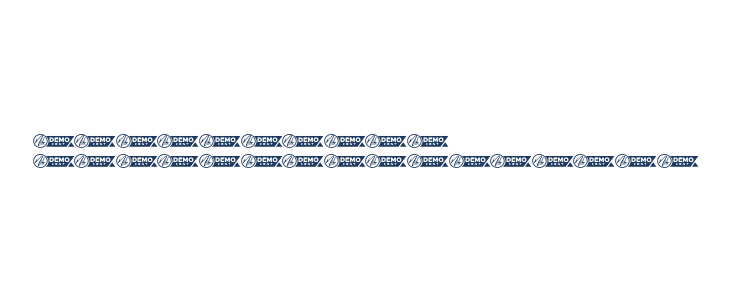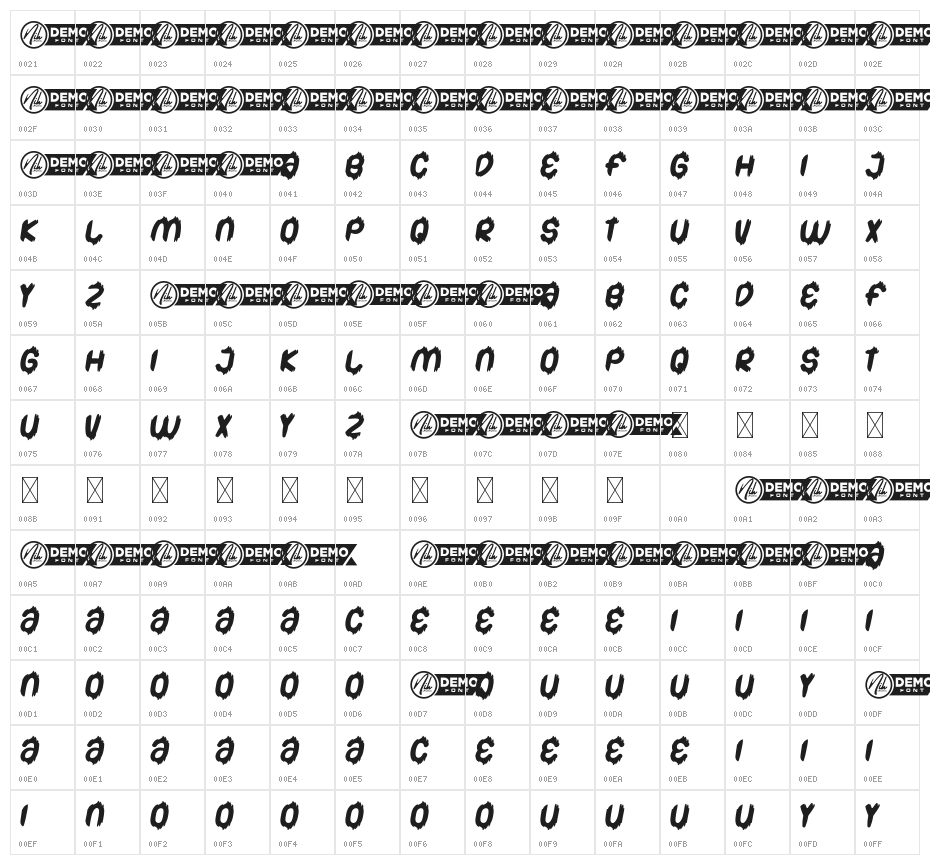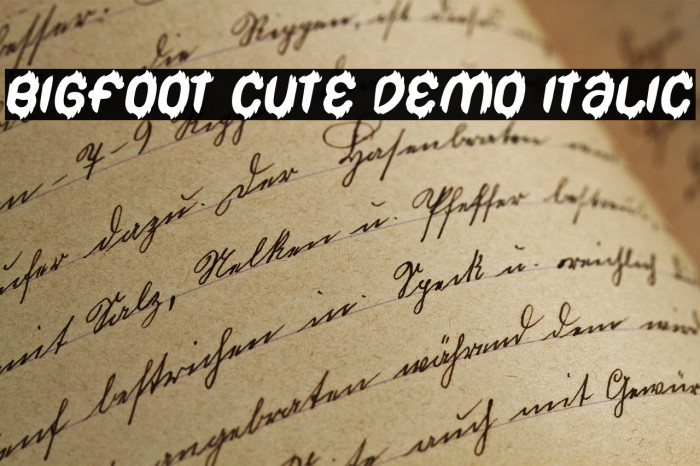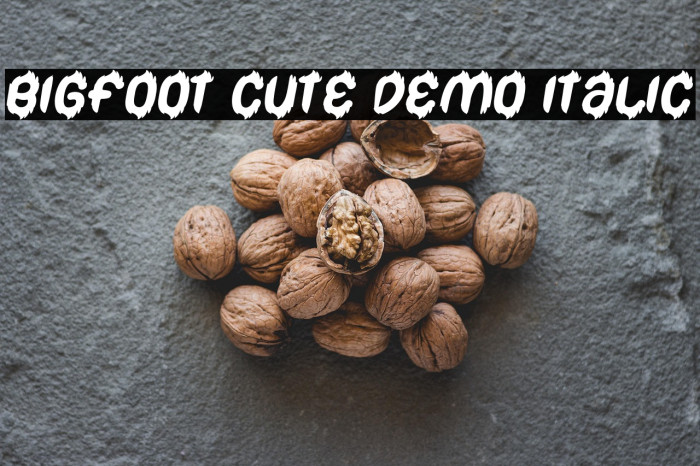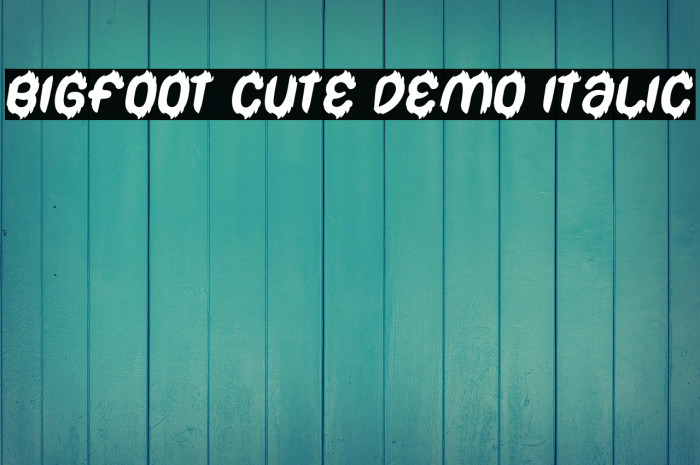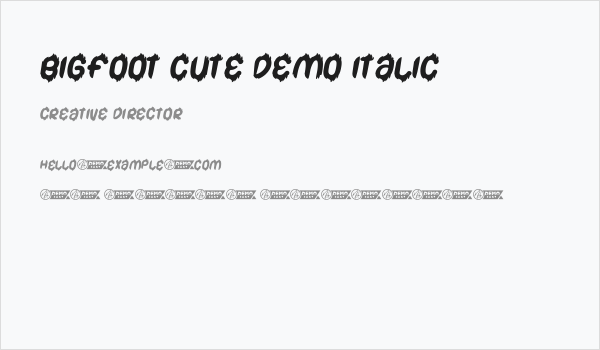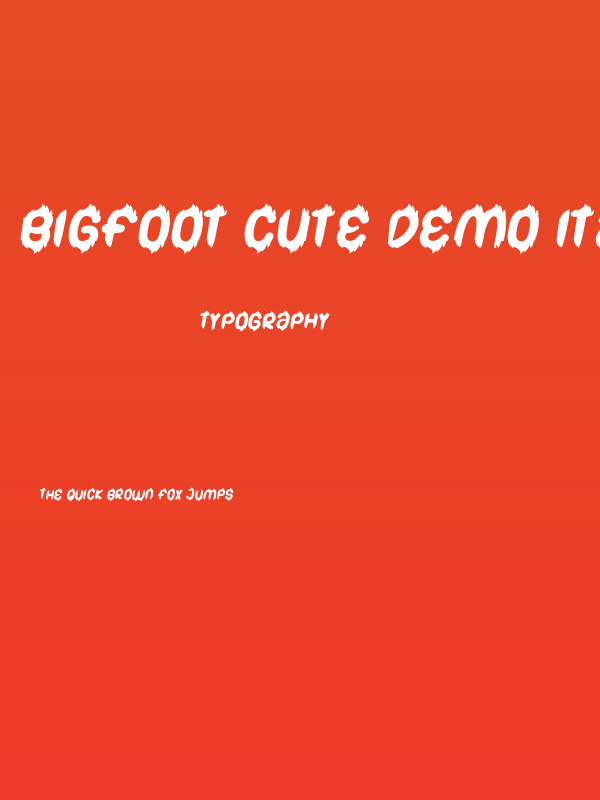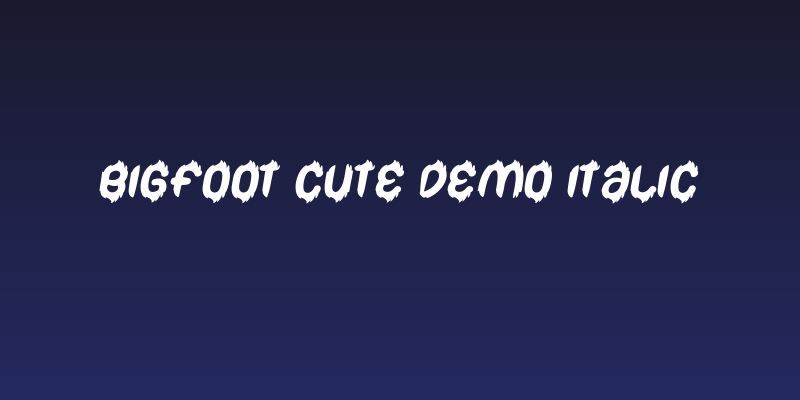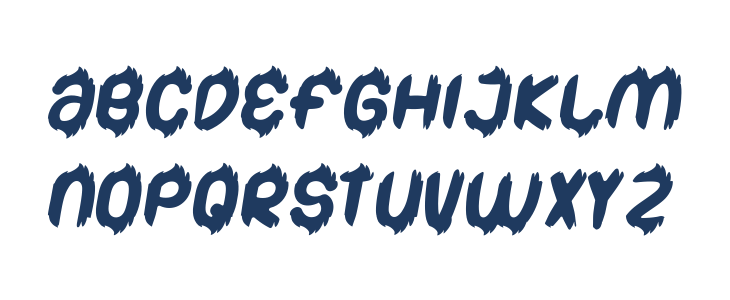
Bigfoot Cute Demo Italic Font
Bigfoot Cute Demo Italic Description
This font features a playful and bold design with a unique, organic flair. Each character is crafted with a whimsical touch, resembling playful brush strokes or flames, giving it a dynamic and energetic appearance. The letters are slightly italicized, adding to the sense of movement and creativity. This font is ideal for projects that require a fun and eye-catching style, making it perfect for children's books, playful branding, or creative posters. The boldness of the characters ensures readability while maintaining a distinctive artistic flair.
| Proposed Projects | Ideal for children's books, playful branding, creative posters, and eye-catching designs. |